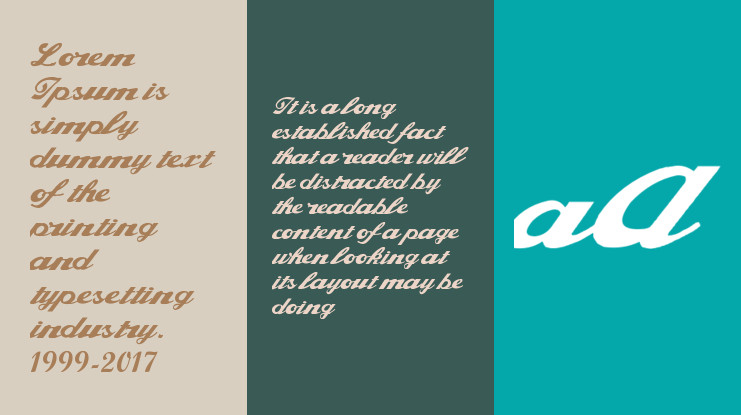
Alfaowner Script Font
Alfaowner Script Font is famous for its script typeface. This typeface is famous for its ambitious-italic feature and also for its use inside the illustrator, and this gives the content a fresh appearance.
This top-notch font has made appreciably in a top-notch type keeping an opentype outline the form. That could be a glamour that is just like the font.